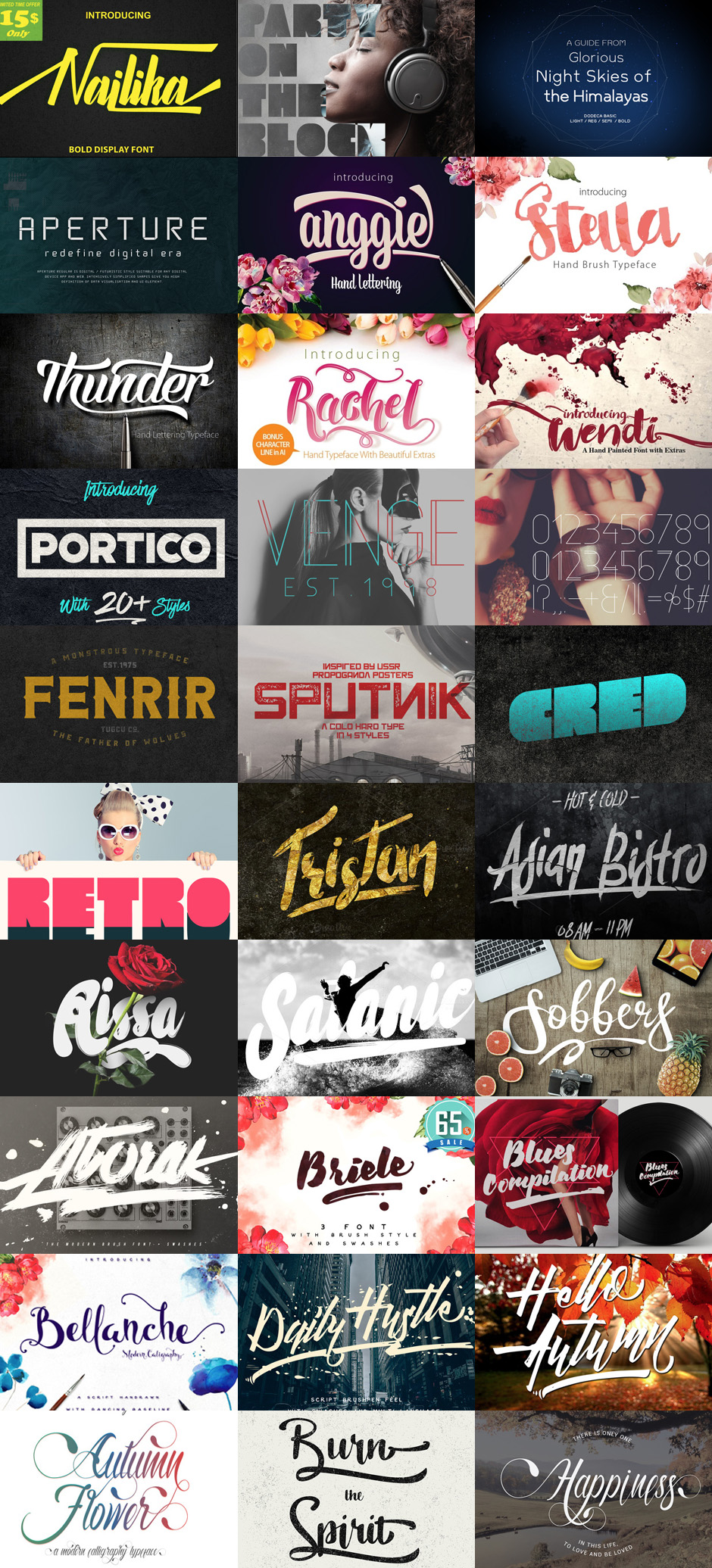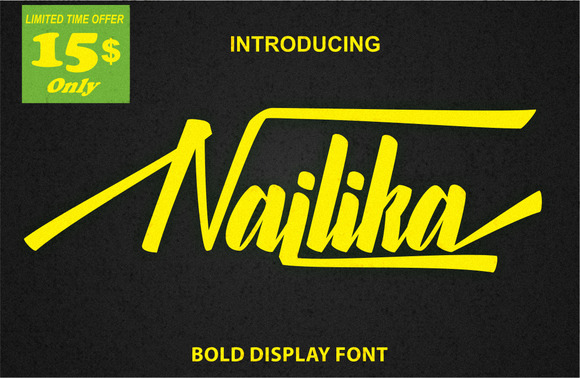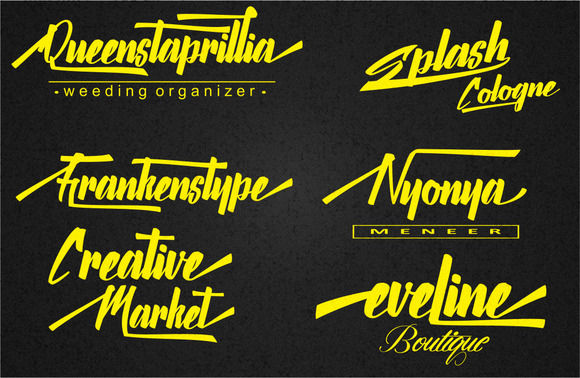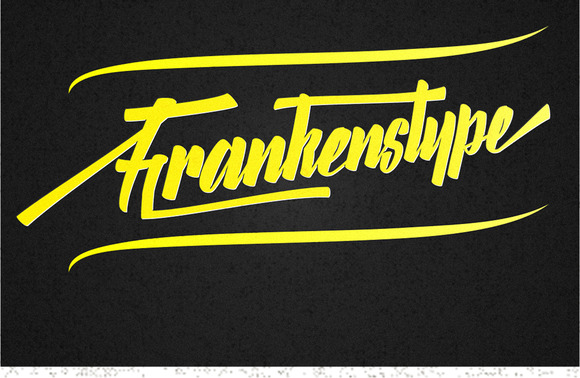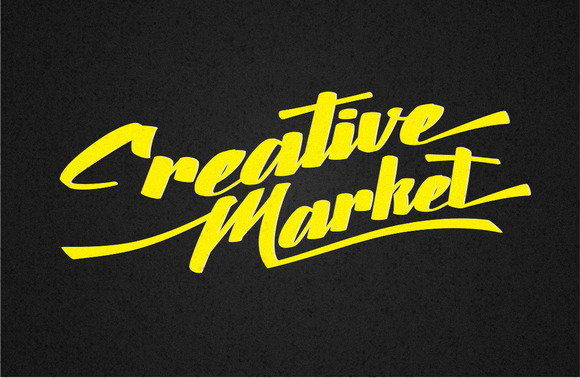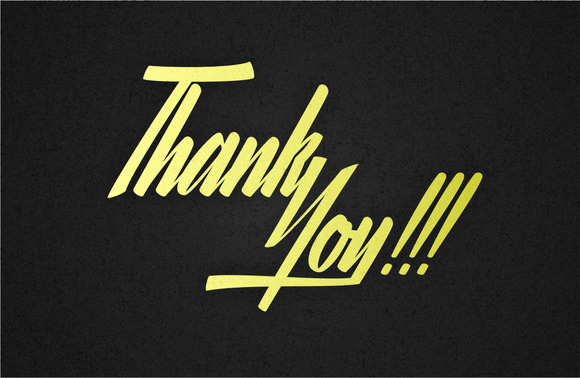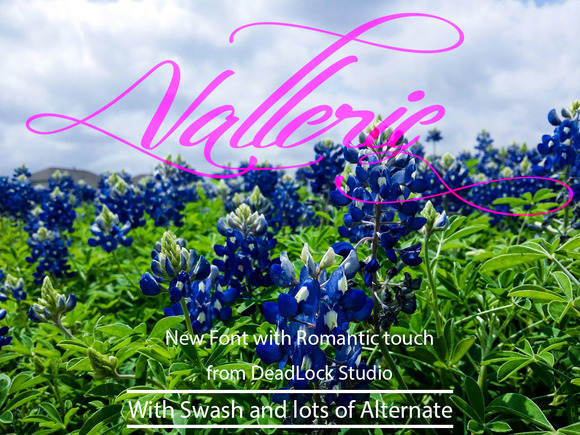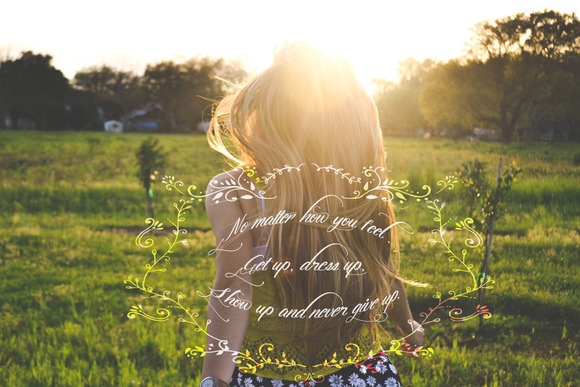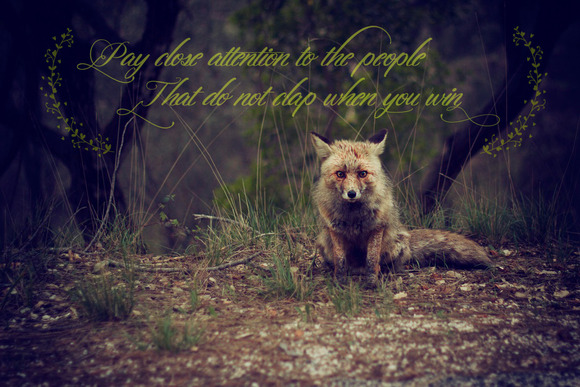
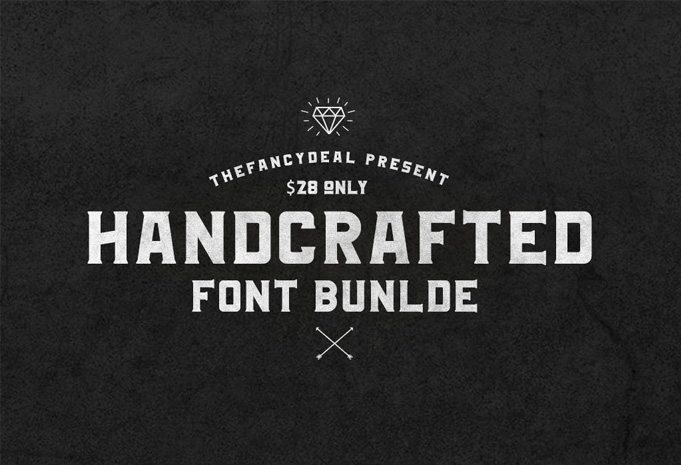
Nailika by deadlock studio
Hello friends!! say hello to Nailika !! A bold and beautifull brushfont that will helps you to finish your design projects. Opentype features also available in Nailika , there are 2-6 alternative characters for each single letter, so you can explore your imagination with Nailika .
Vallerie by deadlock studio
Vallerie is a modern script with romantic touch. With swash and alternate character from opentype feature you can explore your imaginations to create your design project more awesome. Can be used for various purposes, such as greeting card, editorial, branding, wedding invitation, etc.
Dodeca by ethanissweet
Referring Greek Dodecagon, shape to 12angles from natural sacred geometry. Dodeca was born for digital usage and computer based generation. In small case, looks much smoother yet, bigger size features 12 angles. Naturally constructed with geometric shapes.
APERTURE by ethanissweet
APERTURE Regular is digital / futuristic style suitable for any digital device app and web. Intensively simplified shapes give you high definition of Data visualisation and UI element. Optimised to use small case. (up to 9pt)
Anggie lettering by mr.rabbit
Anggie Lettering Typeface is a beautiful hand lettering typeface that comes with a set of Beautiful extras. Highly Suitable for a variety of media design , logo, fashion, poster and all design product
Extras/Stylistic set ( 9 Extras )
Ligature
Stella by mr.rabbit
Stella script typeface is a beautiful hand typeface that comes with a set of Beautiful extras. Highly Suitable for a variety of media design , logo, fashion, poster and all design product
extras
Thunder by mr.rabbit
Thunder is a beautiful hand typeface that comes with a set of Beautiful extras. Highly Suitable for a variety of media design , logo, fashion, poster and all design product
extras
Rachel by mr.rabbit
Wendi by mr.rabbit
Wendi is a beautiful hand painted script that comes with a set of extras. Highly Suitable for a variety of media design , fashion and posters
Portico by Tugcu Design Co.
Portico is a display typeface with a ton of styles. It includes uppercase multilingual letters, numbers and punctuation.
I tried to make the family as versatile as possible. The rounded and in-diagonal versions are great for more personable applications, the urban and rough versions are great for all grunge designs, the layered and vintage versions have a very retro-ish theme to them and work in 2 colors. The stencil version works well for posters and apocalypse themed stuff and the diablo style is just…evil.
Venge by Tugcu Design Co.
Venge is a thin, fashionable display typeface in 4 different styles. It includes uppercase English letters, some alternate letters which you can toggle with Caps Lock, numbers and punctuation.
Fenrir by Tugcu Design Co.
Fenrir is a big and strong vintage typeface with 6 different style options. It includes English uppercase letters, alternates, numbers and punctuation. Toggle caps lock to use alternate letters.
Sputnik Typeface by Tugcu Design Co.
Sputnik is a font inspired by vintage proganda posters, especially ones originating from the USSR. It includes uppercase English letters, some of which have alternates, numbers and simple punctuation.
The type comes in 4 different font styles. They look particularly good in red!
Cred Typeface by Tugcu Design Co.
Cred is a unique fat typeface that includes multilingual uppercase letters, numbers and punctuation. It comes in regular and corroded styles. I’ve found it great for urban/club/event flyers, quirky branding projects and ’80s styled graphics.
Tristan Brush Font + Bonus by Maulana Creative
Give your designs an authentic brush handcrafted feel. “Tristan Font” is perfectly suited to stationery, logos and much more.
Constanta by Maulana Creative
Give your designs an authentic brush handcrafted feel. Constanta Typeface is perfectly suited to stationery, logos and much more.